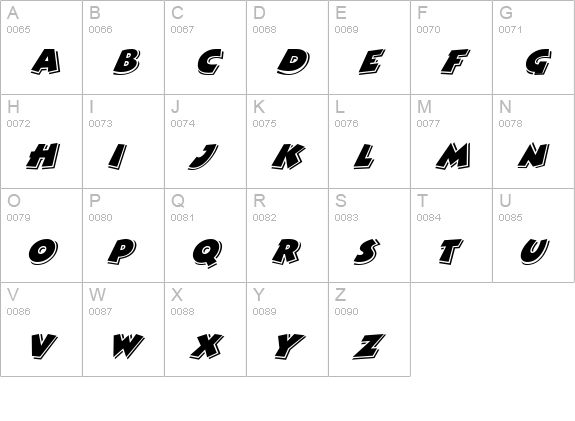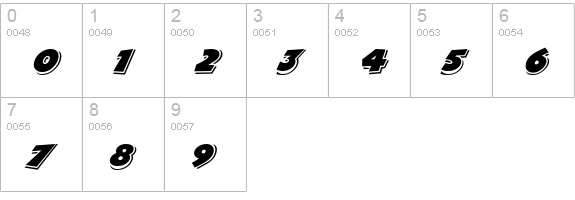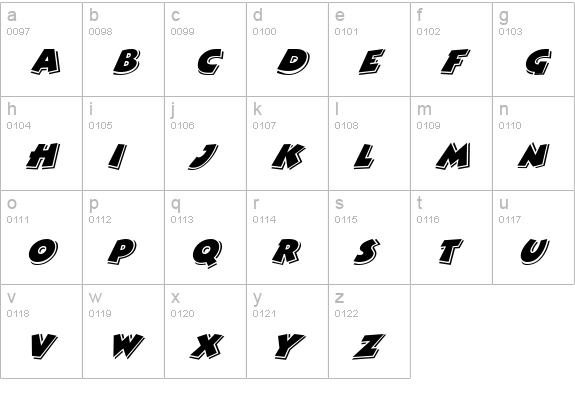
ComixHighlight Italic Font Details
ComixHighlight Italic is a distinctive, italic variant in the ComixHighlight typeface family \xE2\x80\x94 well suited to design and typography projects.
ComixHighlight Italic is a stylish and playful font that brings a touch of whimsy to any design project. Its slanted and dynamic letterforms make it perfect for adding emphasis and personality to your text. This font is ideal for comic book titles, posters, logos, and more. The best part? ComixHighlight Italic is completely free to download at FontsMarket.com. Whether you're a professional designer looking to add a fun twist to your work or a casual user in need of a unique font for personal projects, this font has you covered. Don't miss out on the opportunity to enhance your designs with this eye-catching typeface – download ComixHighlight Italic for free today!